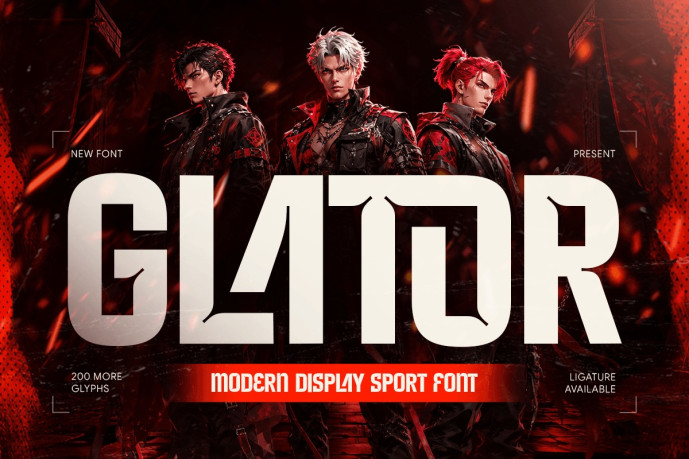
Glator – Modern Display Sport Font
Glator – Modern Display Sport Font Glator is a modern display sport font designed to deliver speed, strength, and bold visual impact. Featuring dynamic letterforms, clean geometric construction, and a contemporary athletic style, Glator is perfect for sports branding, tournament graphics, esports visuals, fitness campaigns, posters, and action-driven creative projects.
Blending modern display typography with energetic sports aesthetics, Glator creates a powerful and memorable visual identity. Its bold structure ensures excellent readability while maintaining a competitive and high-performance appearance, making it ideal for gaming brands, sporting events, digital campaigns, fitness promotions, and modern media.
Glator – Modern Display Sport Font Features:
Modern display style with bold sport-inspired aesthetics
Dynamic letterforms with strong athletic character
Ideal for sports branding, tournaments, posters, and digital campaigns
Uppercase, lowercase, numerals, and punctuation included
Excellent readability with impactful visual presence
Perfect for esports, fitness, event promotions, and creative branding